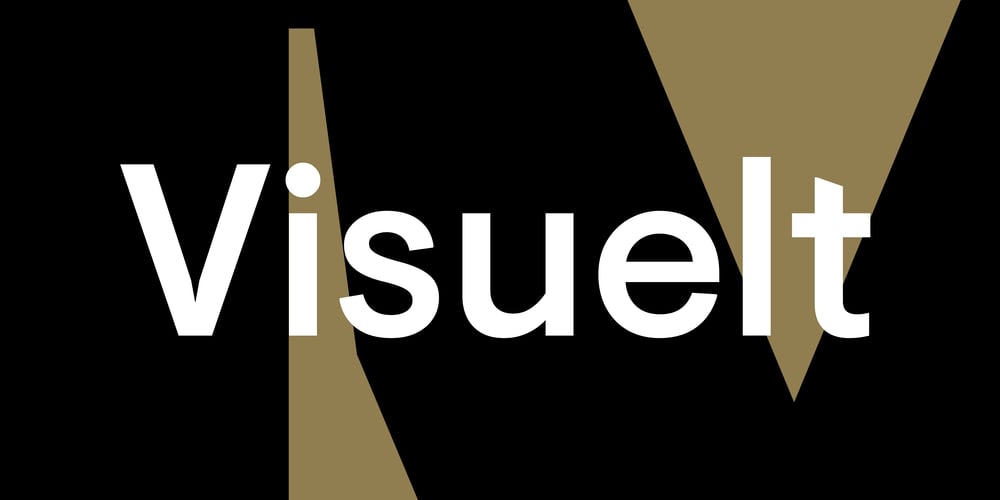
Visuelt Font Family was designed by Colophon Foundry and published by Colophon Foundry. Visuelt contains 14 styles and family package options. Originally created as a bespoke typeface for the 2013 and 2014 identity of design conference and competition Visuelt (Oslo, Norway) – also known as the National Norwegian Design Awards – Visuelt spawned from a more considered and constrained version of our earlier 2010 type family, Aperçu. From its initial roots and underlying aesthetic, new details were brought in to remove some of the more distinguishable features of Aperçu and make way for a new tone of voice and trajectory.We revised and revisited the typeface, producing additional weights to accompany the pre-existing Regular. The lightest of these weights took on thin precise curves, while on the heaviest weight counters were opened and sharp terminal ends chiseled to provide small technical details to an otherwise brutish and heavy face.Since these developments, and as part of an ongoing remastering of the Colophon Foundry library, we further expanded Visuelt to include extensive Eastern European language support, Cyrillic and Greek scripts and extensive OpenType features.